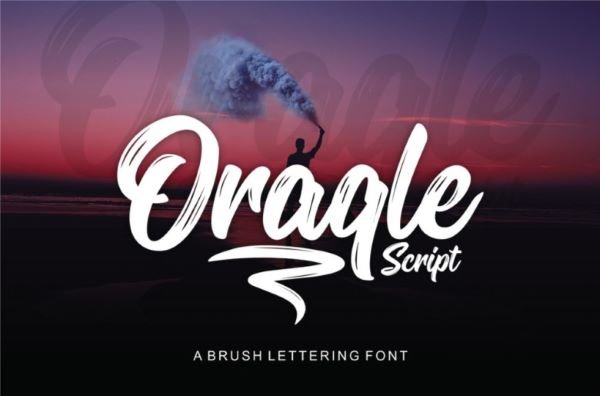
Oraqle Script Font
Oraqle Script Font is a charming and versatile handwritten typeface created by 50 Fox that combines bold brush strokes with authentic textured character. This script font delivers impressive fluidity and clean aesthetics, perfect for logos, printed quotes, badges, insignias, packaging, headlines, posters, apparel, greeting cards, and wedding invitations. With its elegant whimsy and eye-catching vintage appeal, Oraqle Script Font ensures your designs stand out with personality, warmth, and distinctive creative flair.
Font Style: Handwritten, Script